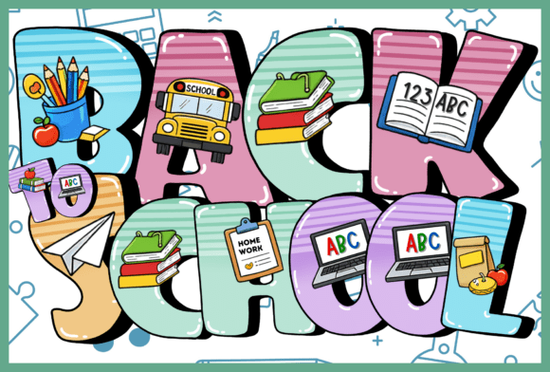
If you're looking for a cheerful, classroom-ready typeface that adds instant personality to lesson plans, bulletin boards, or back-to-school printables, the Back to School Font is a straightforward choice. It’s not overly complex just a friendly, pastel-colored alphabet with playful school-themed decorations built right into each letter. Think apples tucked into the curves of “A”, tiny rulers lining the spine of “R”, or backpacks hanging off the crossbars of “H”. It includes uppercase A–Z, numerals 0–9, and common punctuation all designed with bold outlines so they hold up well in both digital and printed formats.
This isn’t just for teachers printing name tags. Designers building themed Canva templates, small businesses creating custom teacher appreciation mugs, or crafters cutting vinyl for classroom door signs all find it useful. Because the decorations are part of the glyphs not separate graphics you don’t need to layer elements or align icons manually. That saves time when designing bundles for Etsy or preparing files for print-on-demand services like Printful or Redbubble.
Homeschool parents also appreciate how easily it turns worksheets into something kids look forward to. A spelling list in this font feels less like homework and more like a little visual story. And since it’s vector-based (available as OTF and TTF), scaling it up for a large banner or down for a sticker sheet doesn’t affect clarity.
Unlike script fonts that rely on flow and connection, or serif fonts meant for long-form reading, the Back to School Font sits comfortably in the colorful fonts category it’s legible at a glance but still full of character. If you’ve used the Split Rose Flower Monogram Font for elegant invitations, you’ll notice this one trades floral delicacy for cheerful energy. Or if you’ve worked with the Sun and Moon Magic Font for mystical themes, you’ll see how this one swaps celestial symbols for everyday classroom objects making it more grounded and instantly recognizable.
It’s also more focused than something like the Cat Club Font, which leans into whimsy and animal charm. Here, the theme is consistent and functional: every decoration supports the “school” idea without distracting from readability.
- Printable planners and checklists especially for students tracking assignments or habits
- Classroom posters and anchor charts the bold outlines help text stay clear even from across the room
- Teacher thank-you cards or end-of-year gifts pairs nicely with simple borders and minimal clipart
- SVG files for Cricut or Silhouette clean vector paths mean smooth cuts and easy color fills
- Educational games and flashcards letters double as visual cues (e.g., “B” shaped like a bus)
You can use it solo for impact, or layer it over subtle watercolor textures or lined paper backgrounds its pastel palette was chosen to sit well alongside soft blues, mint greens, and warm yellows without clashing.
One practical tip: test spacing early. Because the decorations extend slightly beyond standard letter bounds, kerning may need minor adjustment in apps like Adobe Illustrator or Affinity Designer especially in words like “BUS” or “APPLE”, where adjacent decorated letters can feel crowded. A quick preview at 72 pt helps spot those spots before finalizing.
- ✅ Try typing a short phrase in your design app first see how the decorations interact
- ✅ Pair it with a clean sans-serif (like Montserrat or Open Sans) for body text to balance the playfulness
- ❌ Don’t stretch or distort the font it’s optimized for its natural proportions